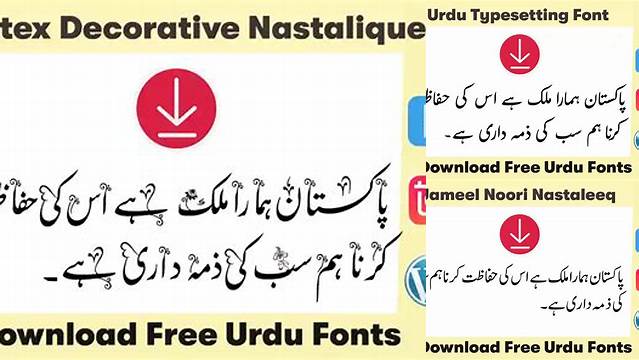
Free Urdu Fonts For Pixellab: TTF Zip Download
Hey guys! Are you looking to add some amazing Urdu flavor to your Pixellab projects? You've come to the right place! Finding the perfect font can be a game-changer, and when it comes to Urdu typography, having the right resources is essential. We're diving deep into the world of free Urdu fonts specifically for Pixellab, and we'll show you where to find them, how to download them in TTF format as ZIP files, and how to install them so you can start creating stunning visuals. So, grab your chai, and let’s get started!
1. Understanding the Importance of Urdu Fonts in Design
Urdu, with its elegant script and rich cultural heritage, deserves to be represented beautifully in your designs. The right Urdu fonts can elevate your work, adding a touch of authenticity and sophistication. Using generic fonts can sometimes feel… well, generic. To truly connect with your audience and convey the right message, selecting fonts that resonate with the spirit of Urdu calligraphy is crucial. When you use appropriate free Urdu fonts, your designs gain a professional edge and become more visually appealing. It's not just about aesthetics; it's about respecting the language and its artistic traditions. Imagine creating a poster for a cultural event or designing social media graphics for a brand targeting Urdu speakers. The right font can make all the difference in capturing attention and conveying the intended emotion. This isn't just about picking something pretty; it's about choosing a font that carries the weight of history and the beauty of the language itself. Think of how the flowing curves and intricate details can add depth and personality to your projects. It's the secret ingredient that turns good design into great design.
4. How to Identify High-Quality Urdu Fonts
Not all Urdu fonts are created equal. A high-quality font will have consistent character design, smooth curves, and proper spacing between letters. Look for fonts that are well-hinted, meaning they display clearly at different sizes without becoming blurry or distorted. Pay attention to the legibility of the font, especially in smaller sizes. Can you easily read the text, or do the letters start to blend together? A good font should also have a complete character set, including all the Urdu letters, numbers, and punctuation marks. It's also a good idea to check if the font supports ligatures, which are special letter combinations that enhance the flow and beauty of Urdu script. Avoid fonts that look rushed or amateurish; a professionally designed font will have a polished and refined appearance. Checking previews and sample text is crucial. Does the font look good in different contexts? Does it maintain its visual appeal across various applications? Ultimately, a high-quality free Urdu font should enhance your design without drawing unnecessary attention to itself.